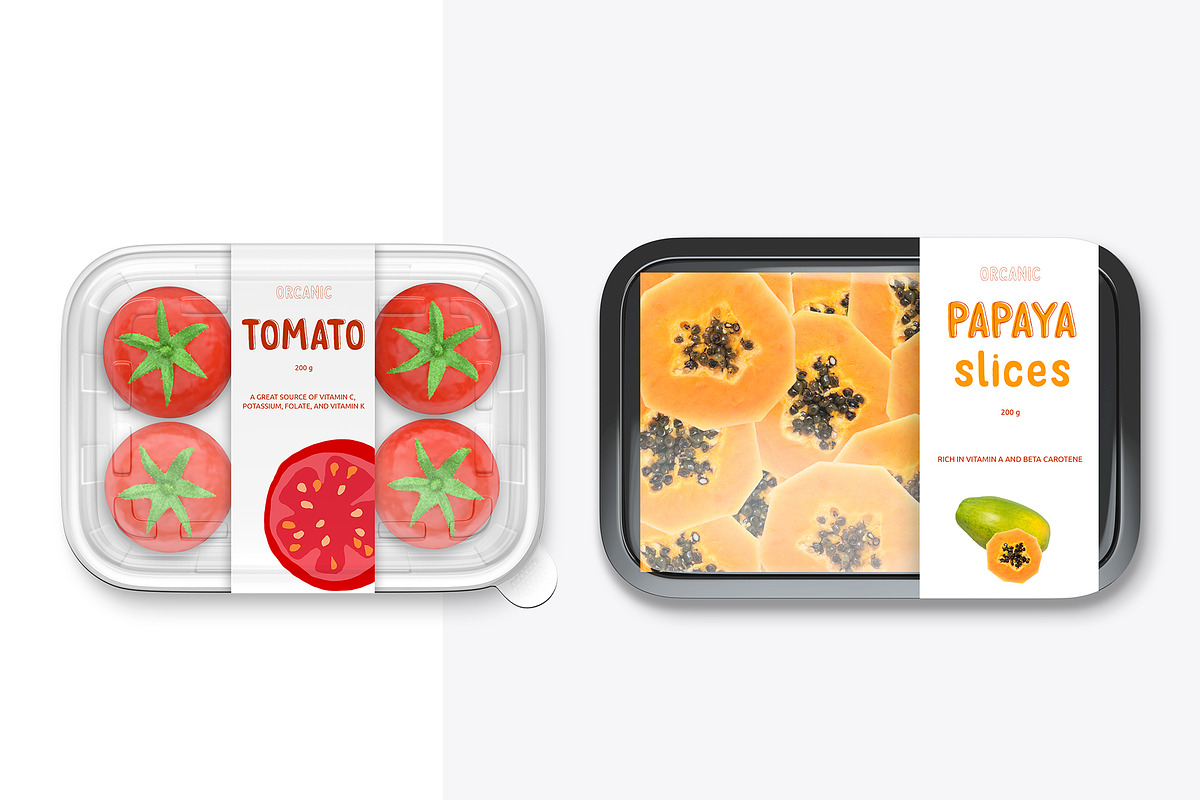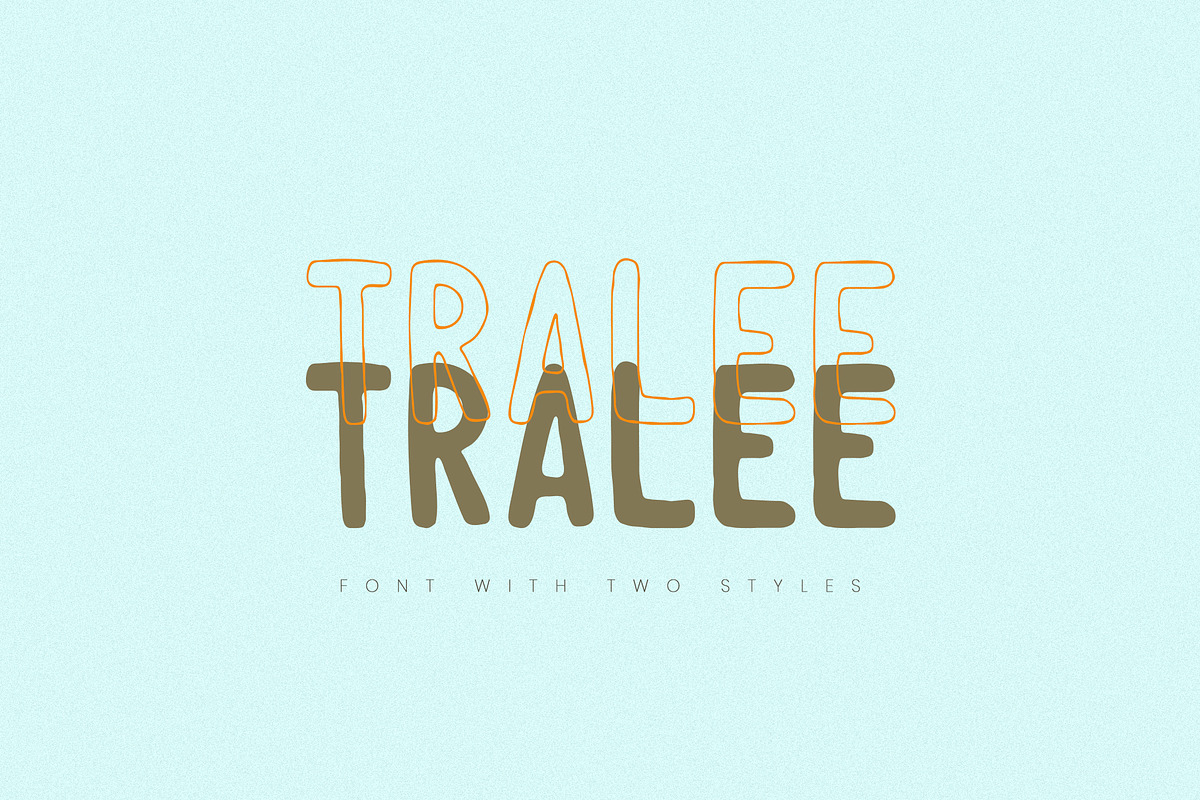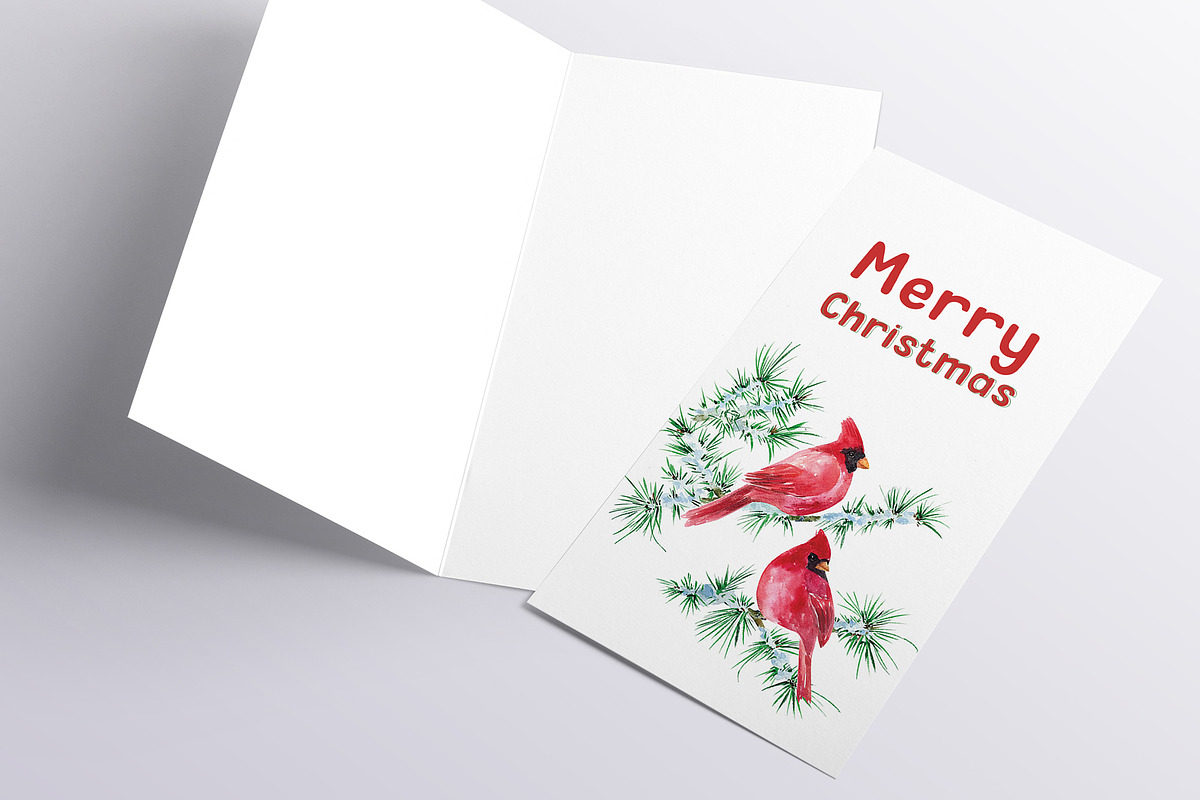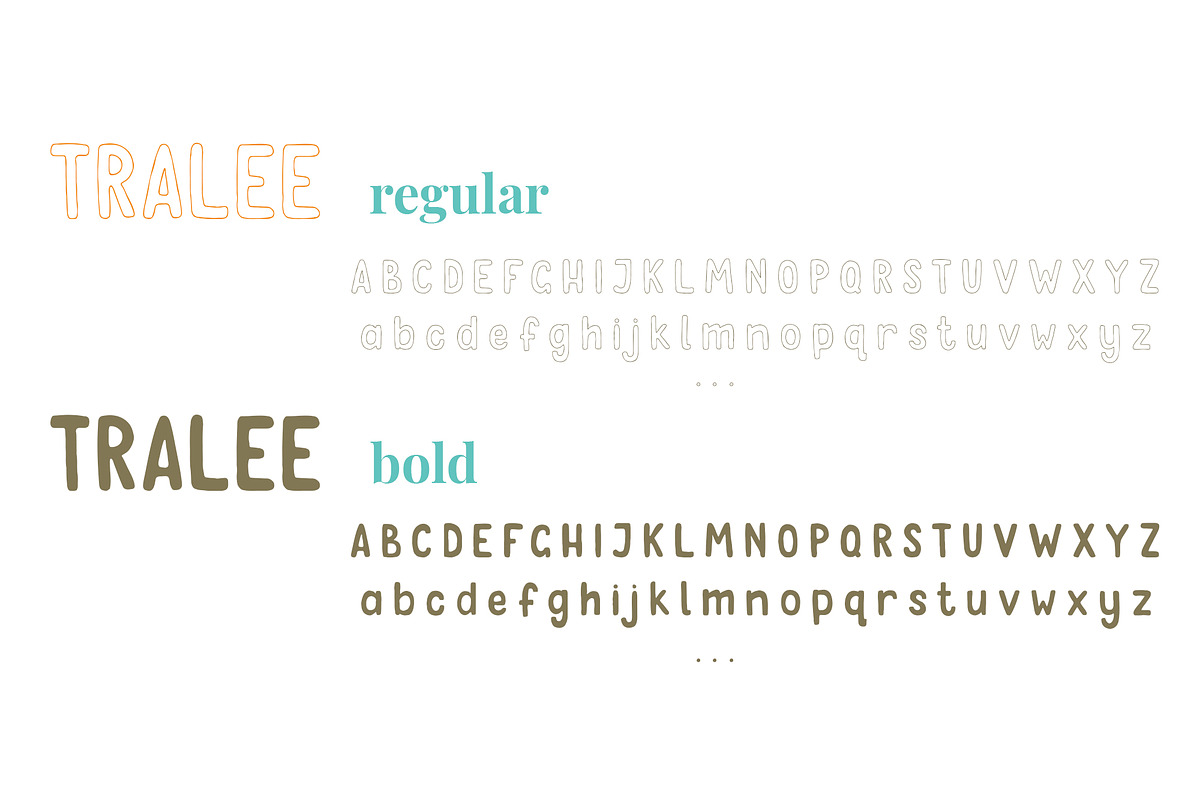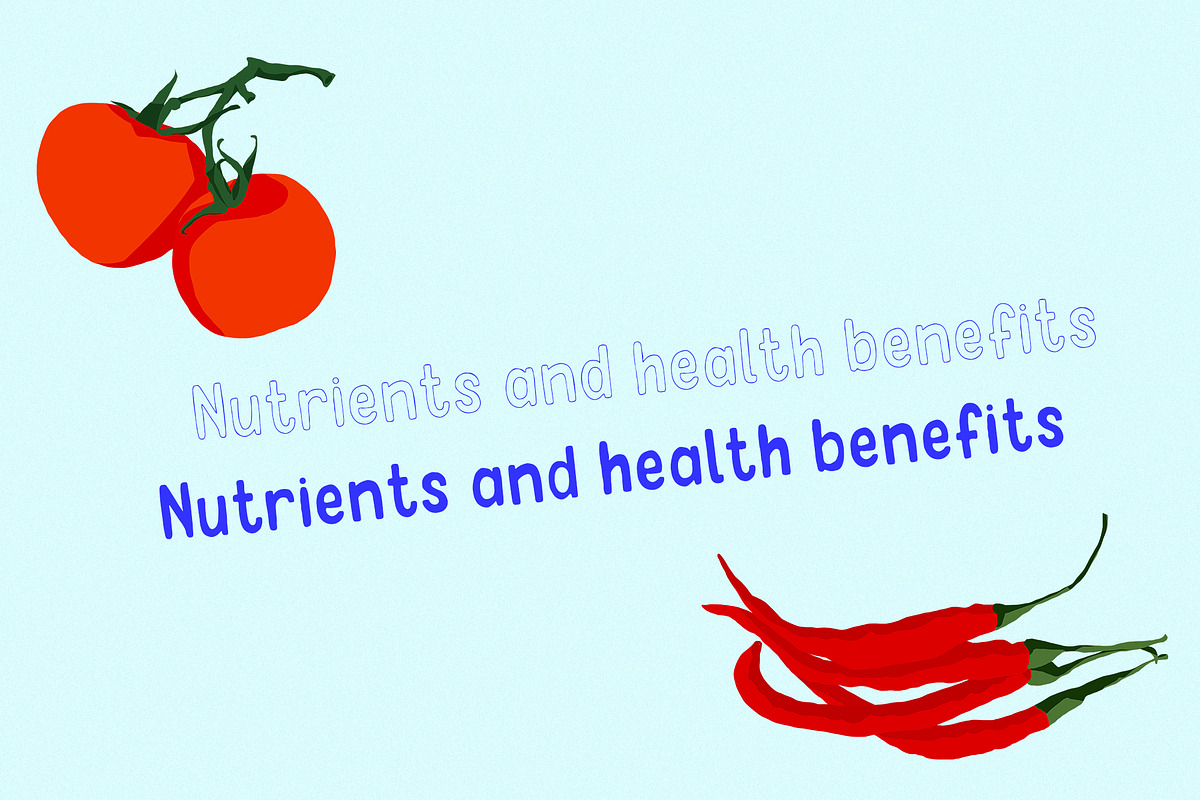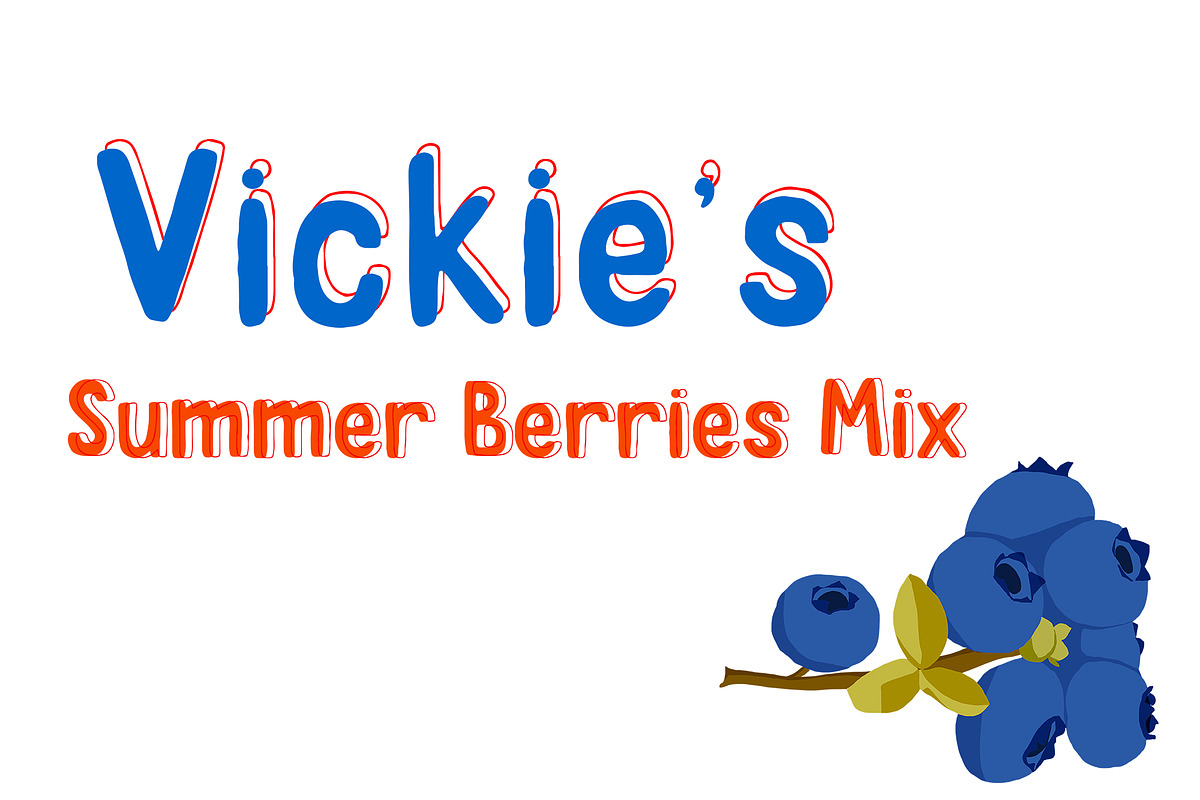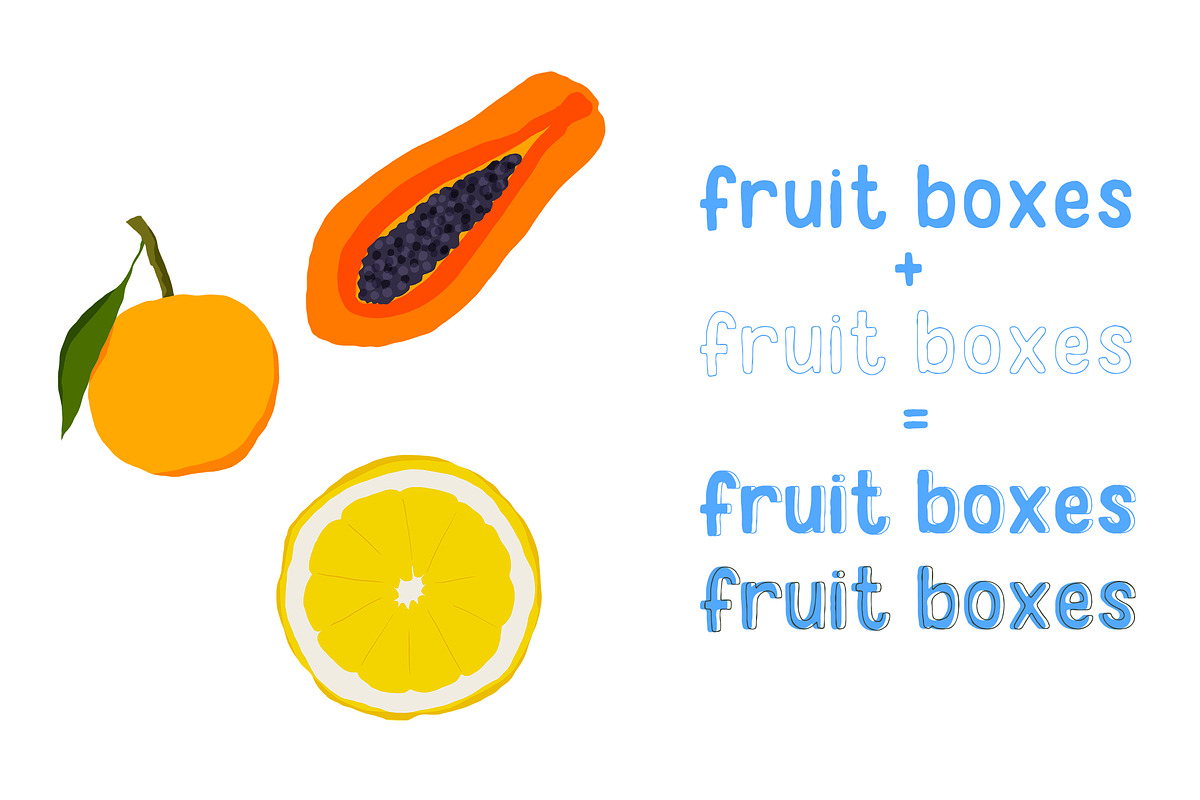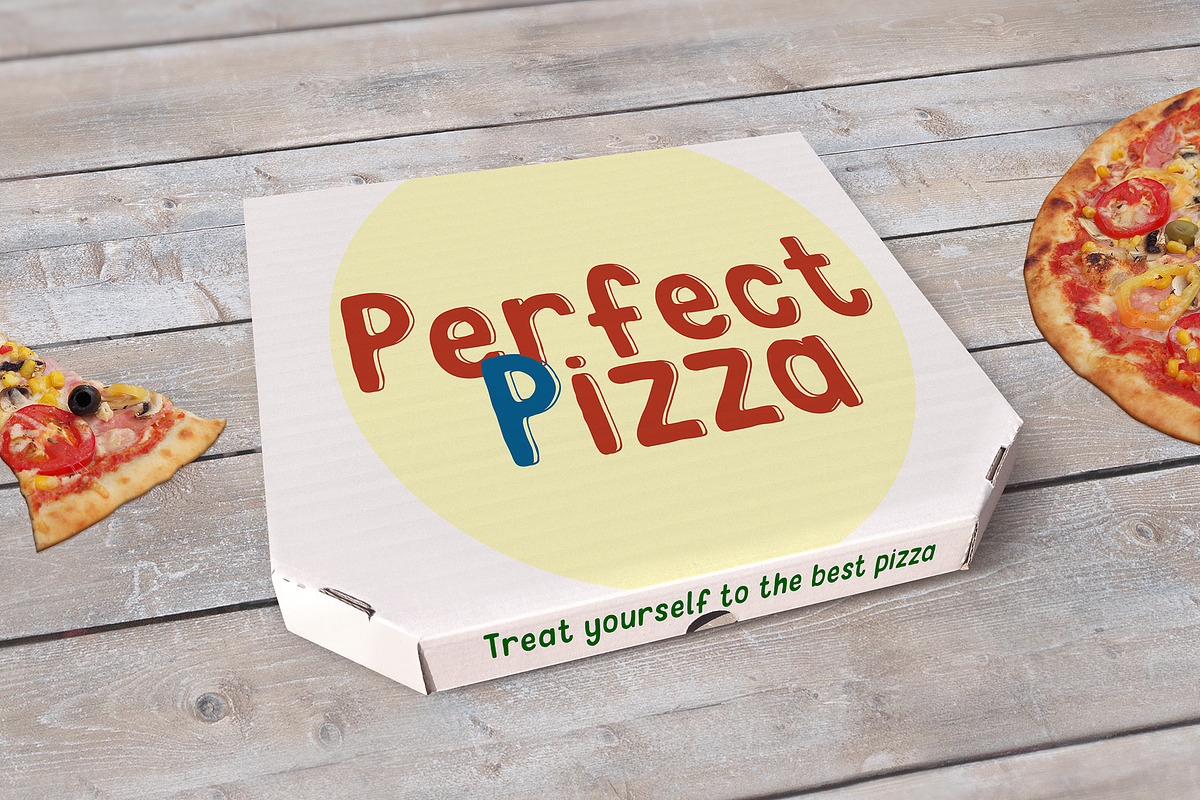
Tralee Font / Two Styles
Tralee Font family consist of 2 styles, regular with outline and bold filled with background colour.
Originally designed for packaging typography, also would be suitable for titles, headlines, greeting cards, adverts, books and more. OTF, TTF, WOFF files